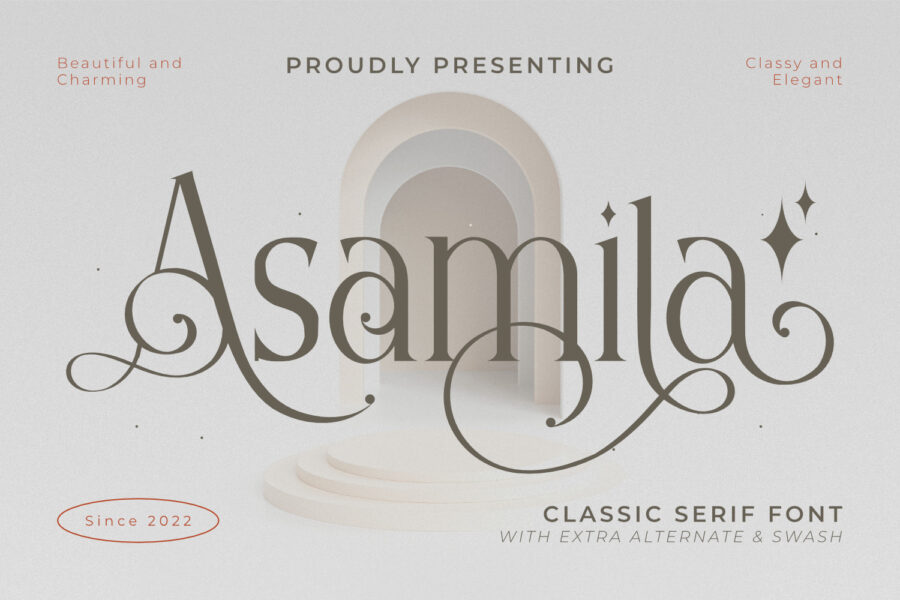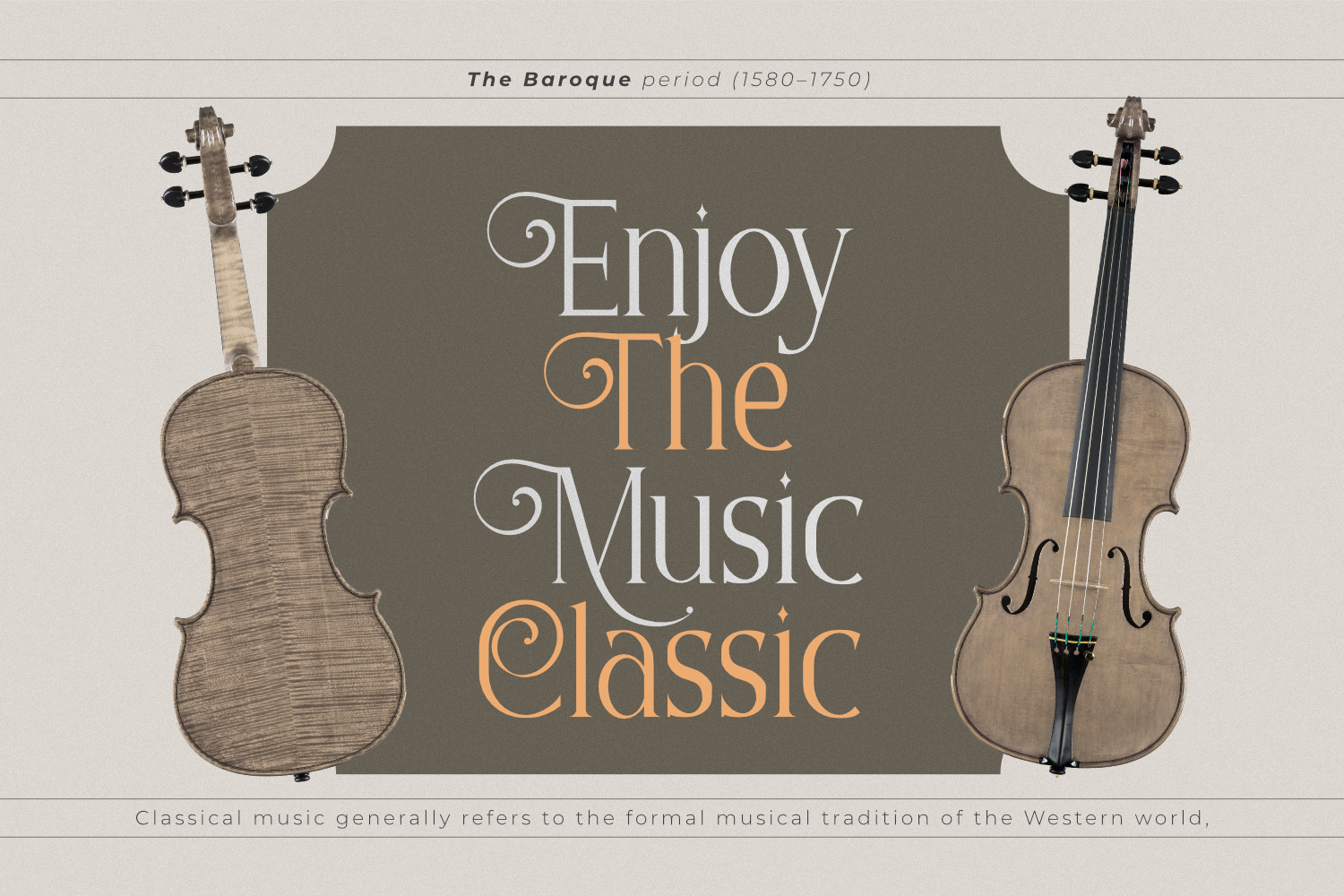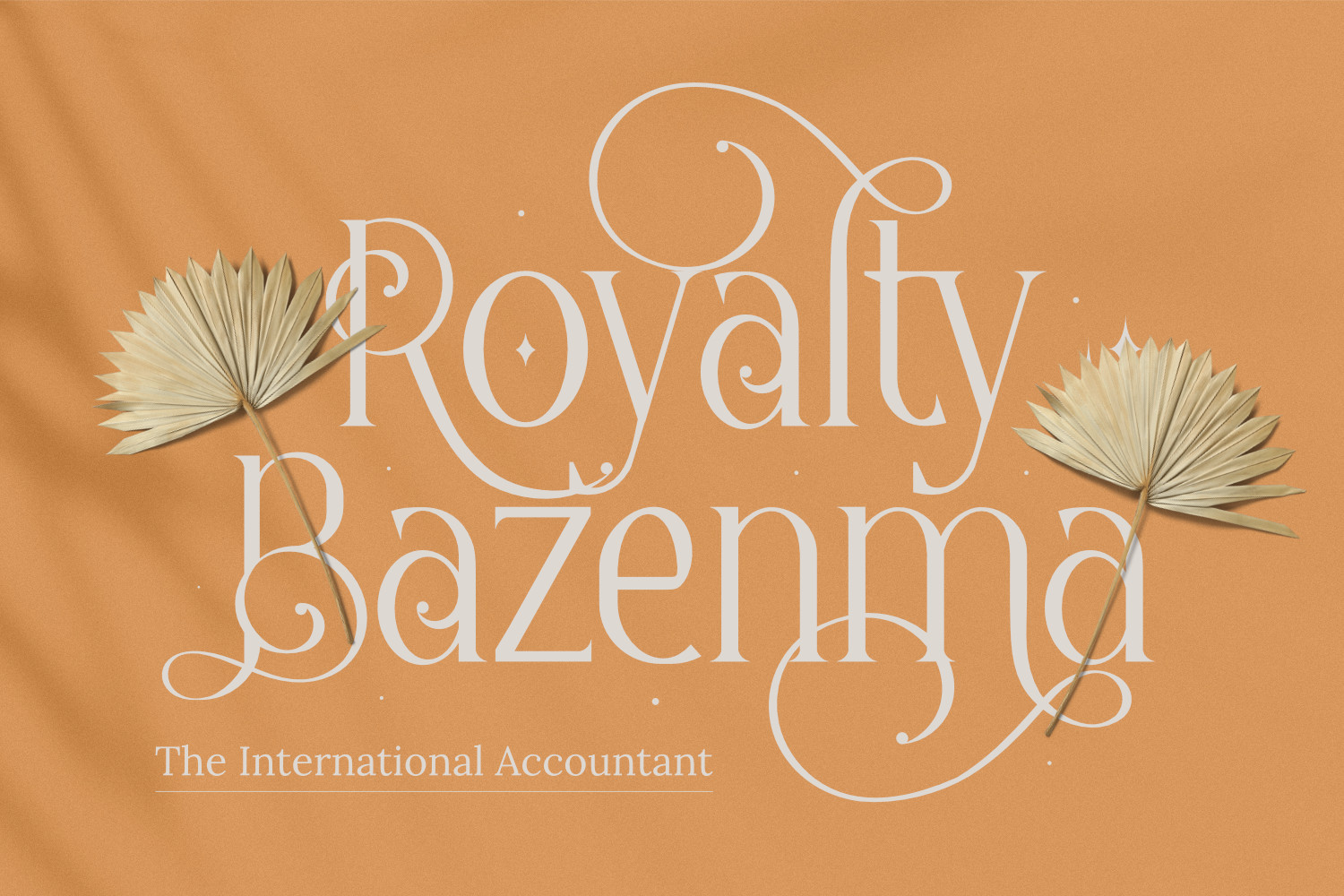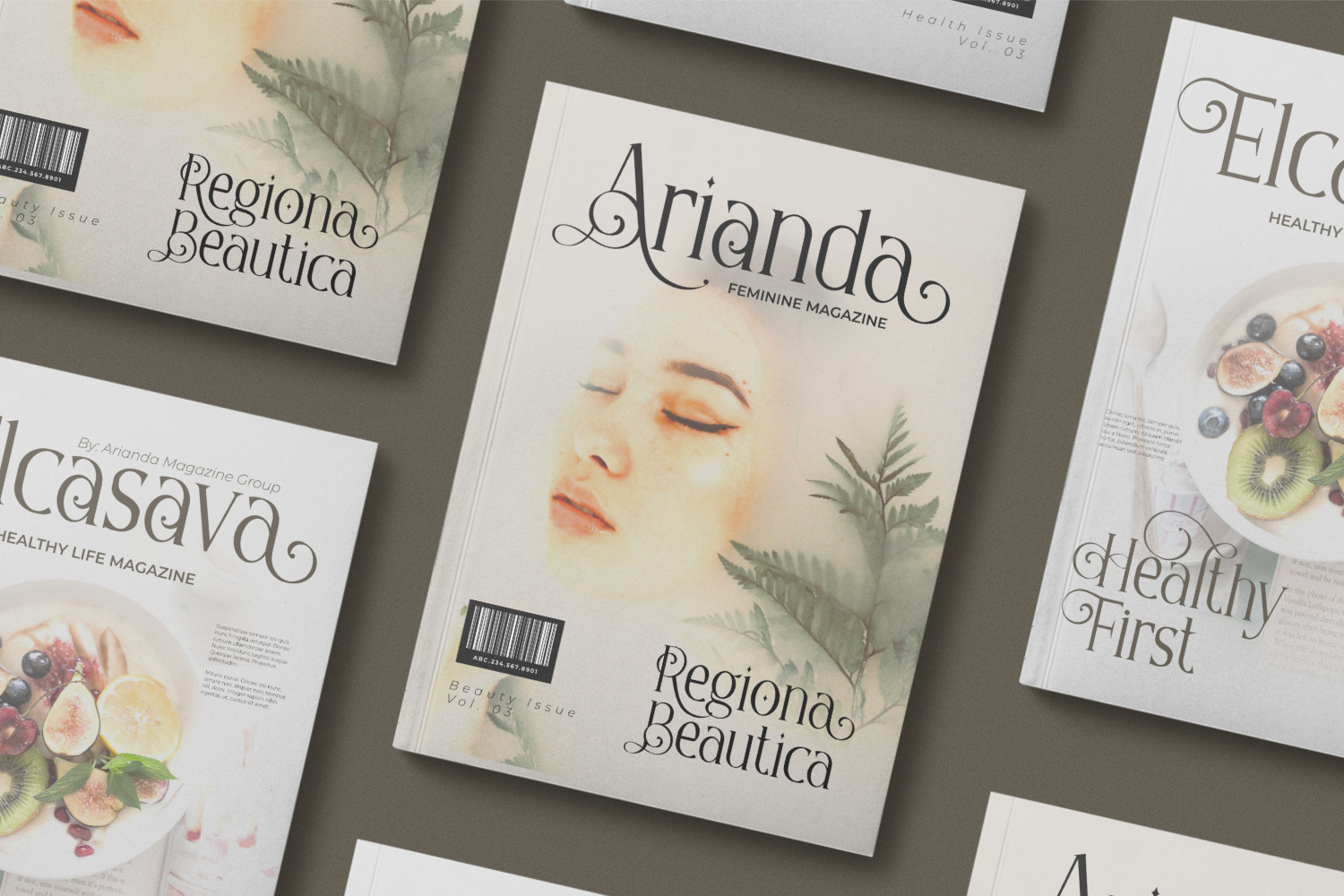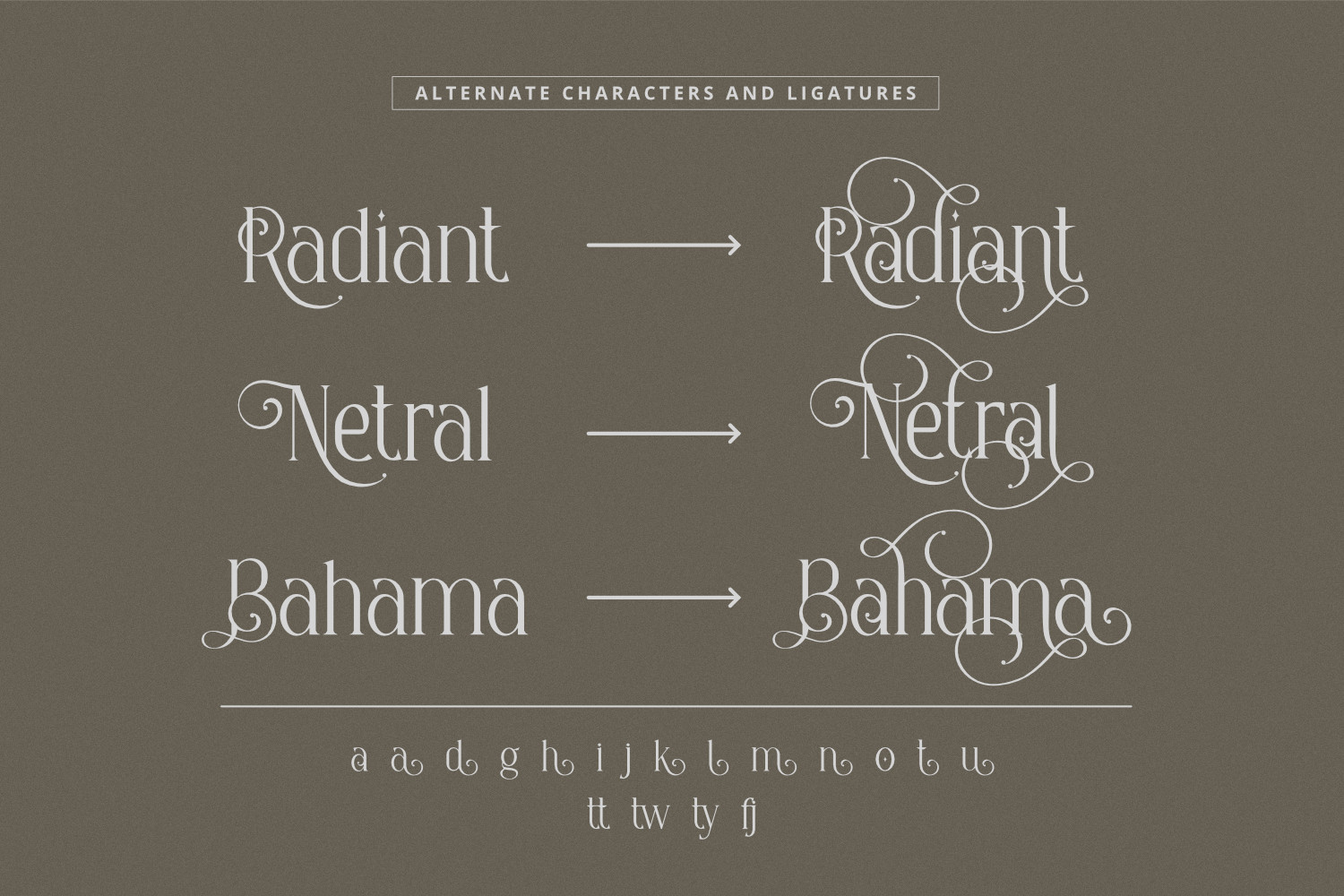
Asamila is a classic serif font that blends timeless elegance with ornamental sophistication. Featuring high-contrast strokes and elaborate swash alternates, Asamila evokes a sense of romantic charm and historical refinement. The curves are thoughtfully designed to add an artistic flair, making this typeface perfect for editorial use, luxury branding, event invitations, or anything that demands a grand and decorative touch.
With a full set of ligatures, alternates, and multilingual support, Asamila offers both functional readability and stylish versatility. Whether used in formal headlines or feminine branding projects, this typeface lends a unique sense of grace and visual intrigue. It’s especially suited for classical music posters, boutique packaging, or premium publishing covers where distinction is key.